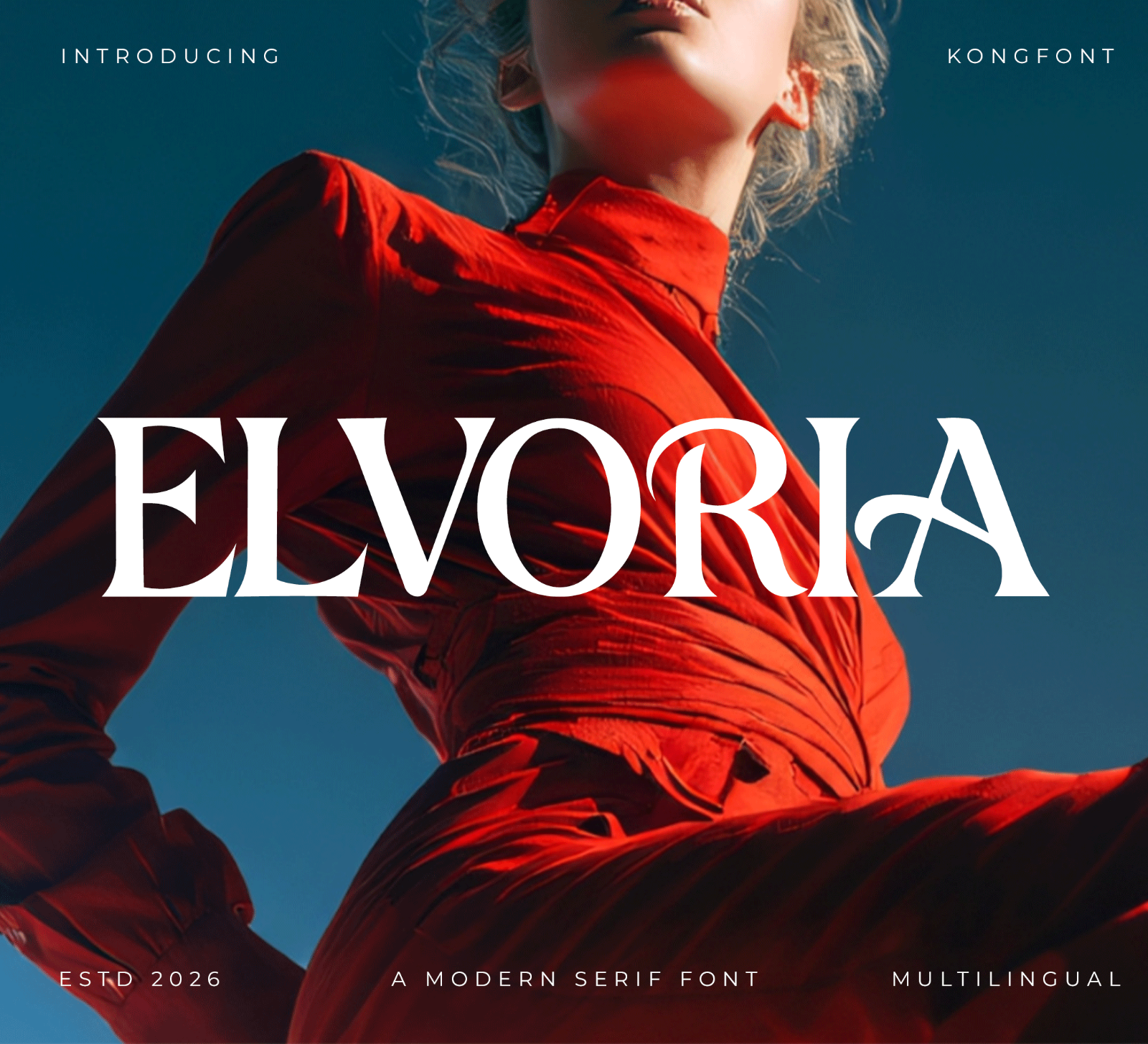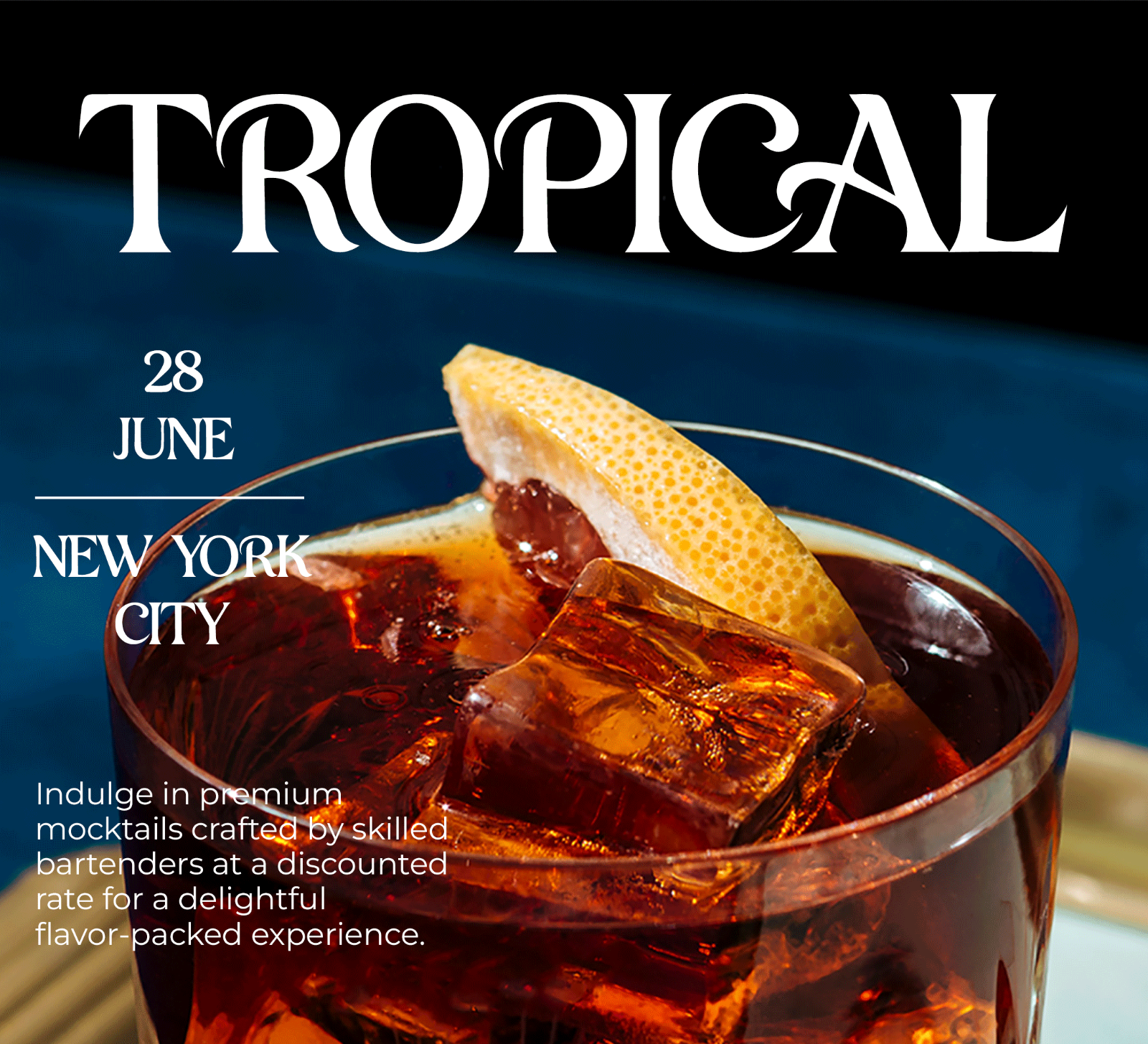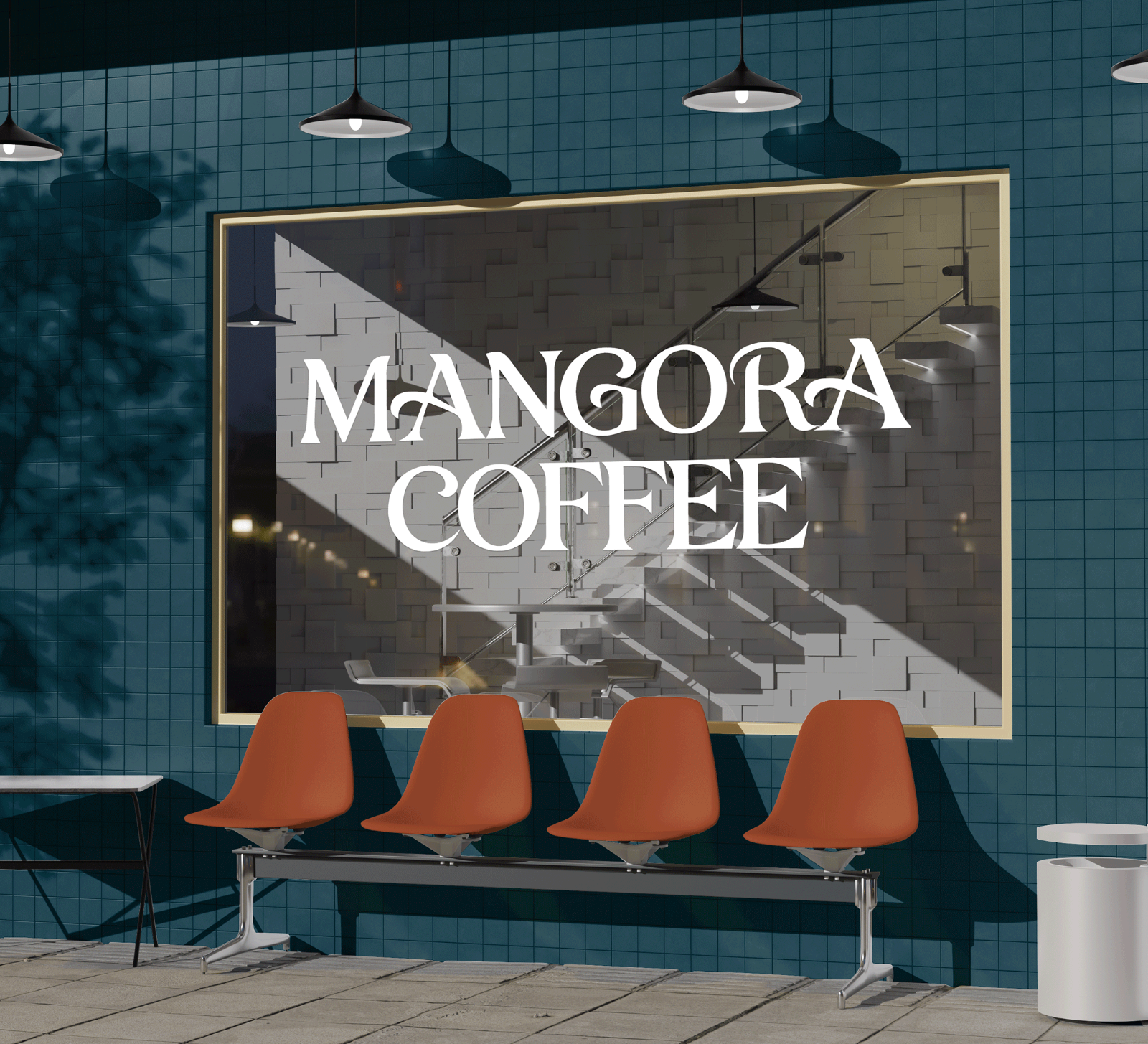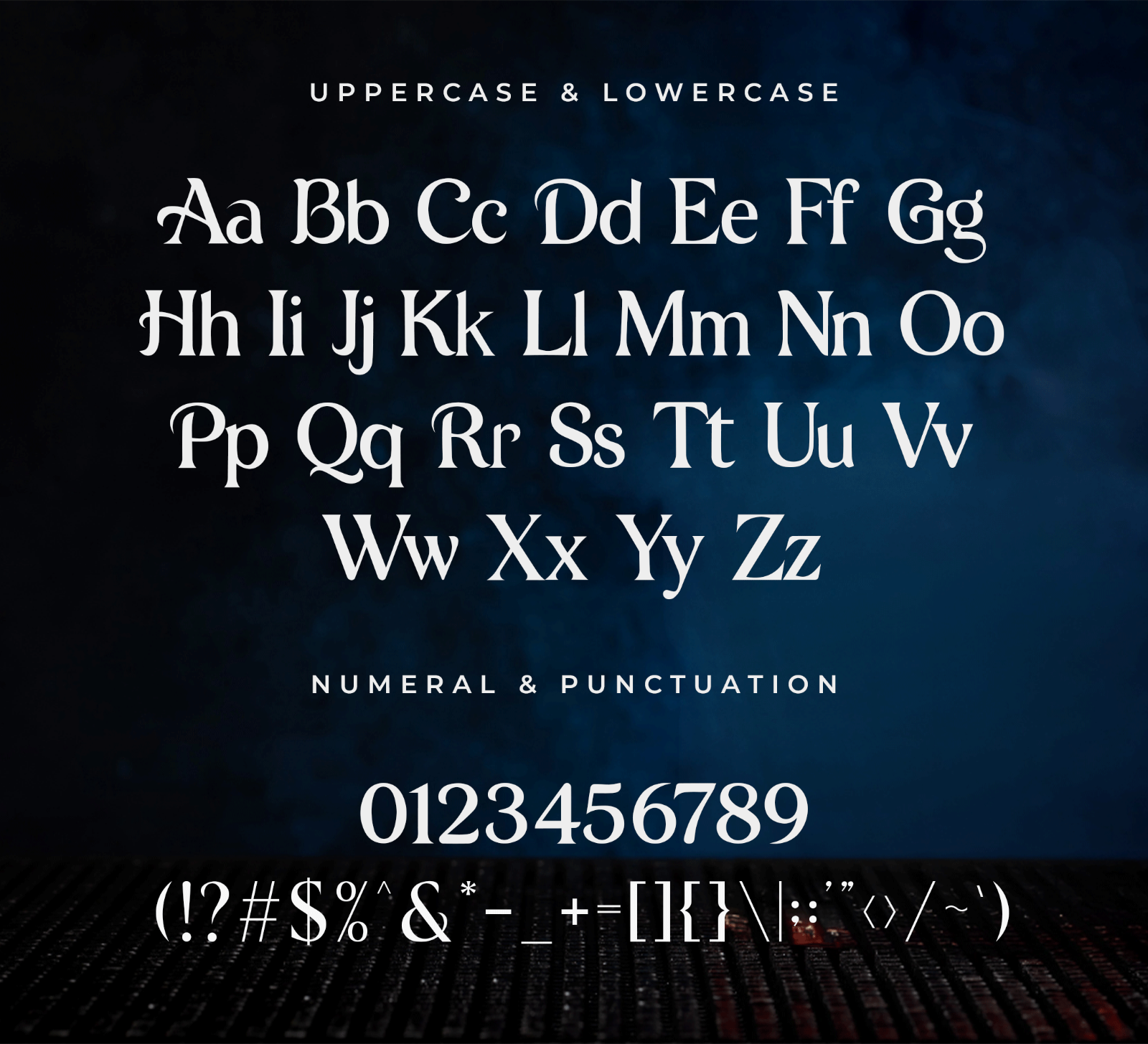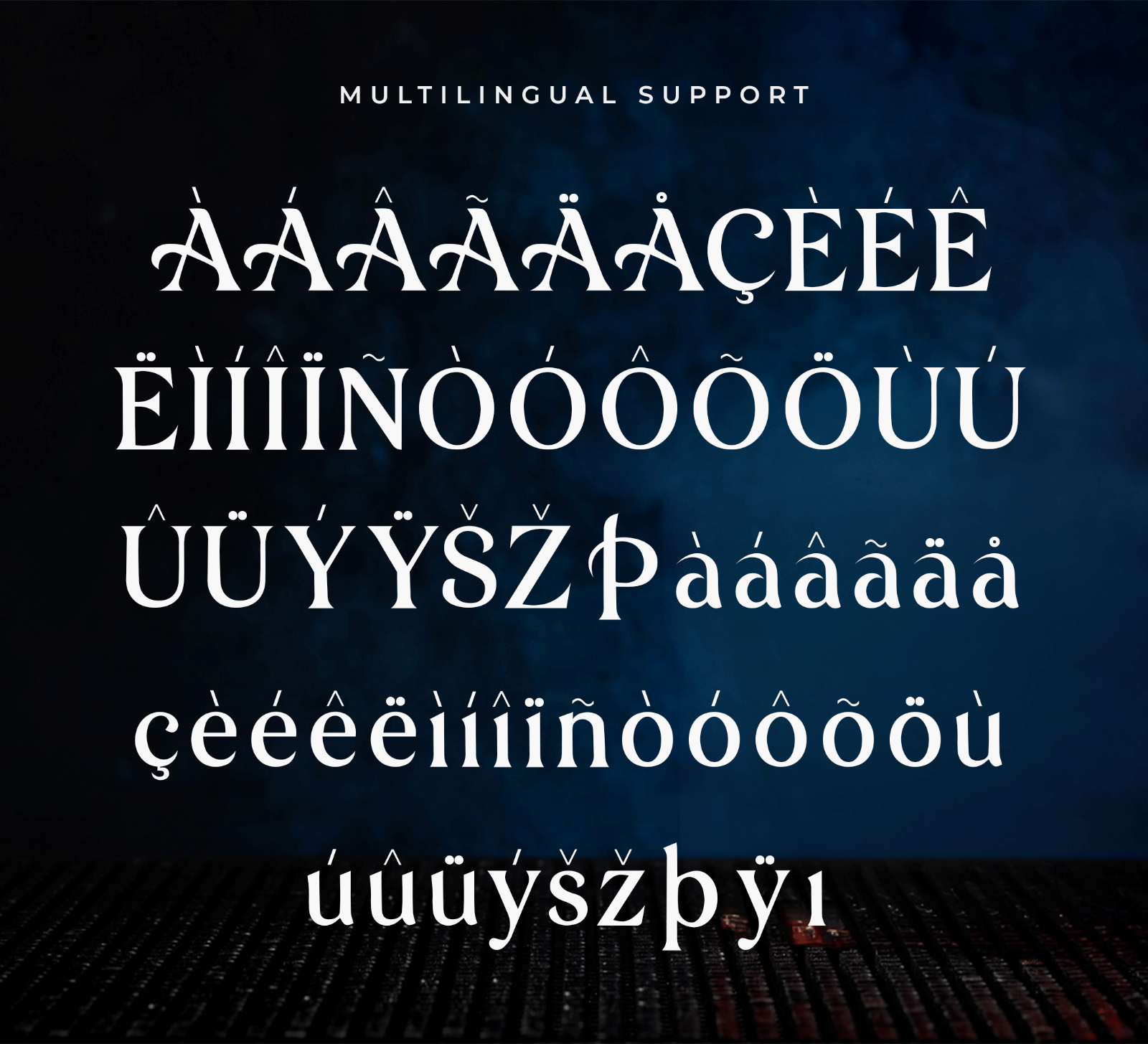
Elvoria is a modern serif font with bold letterforms, smooth curves, and a refined contemporary style. Its elegant and distinctive appearance makes it perfect for designs that need a strong, stylish, and professional look.
• Branding
• Logos
• Business cards
• Blog headers
• Quotes
• Editorial titles
• Packaging
• Creative typography